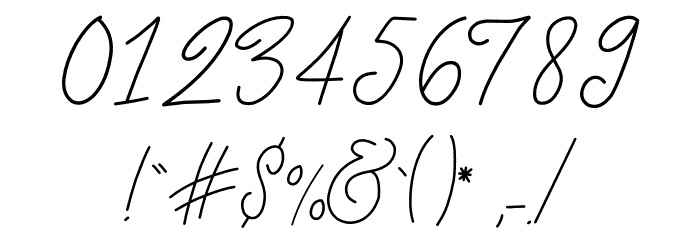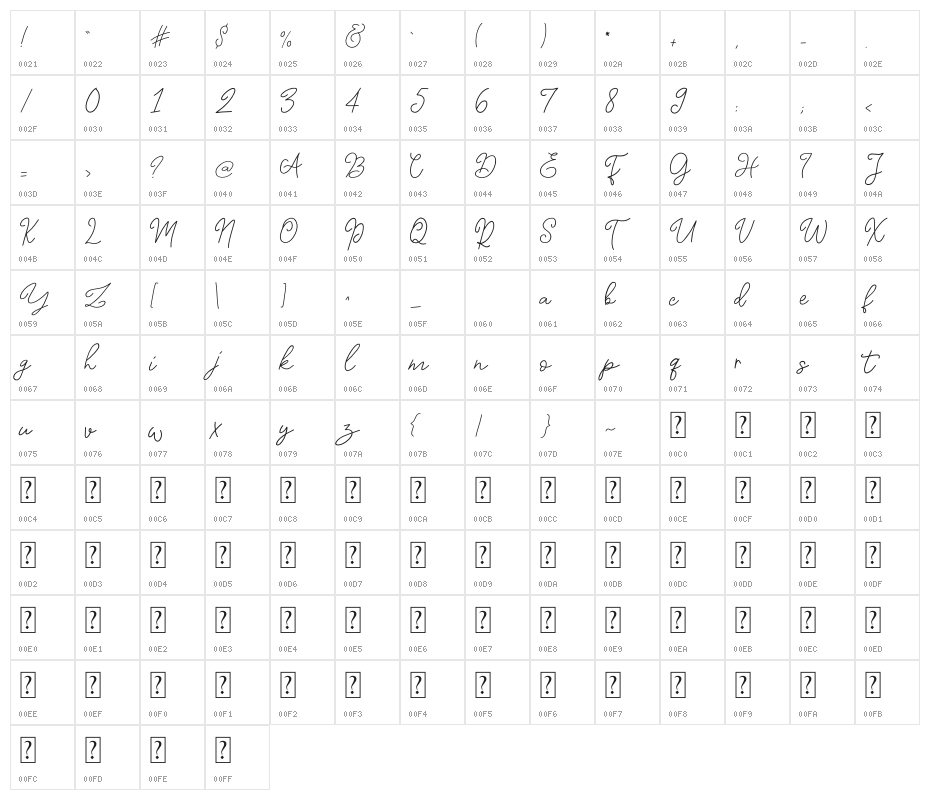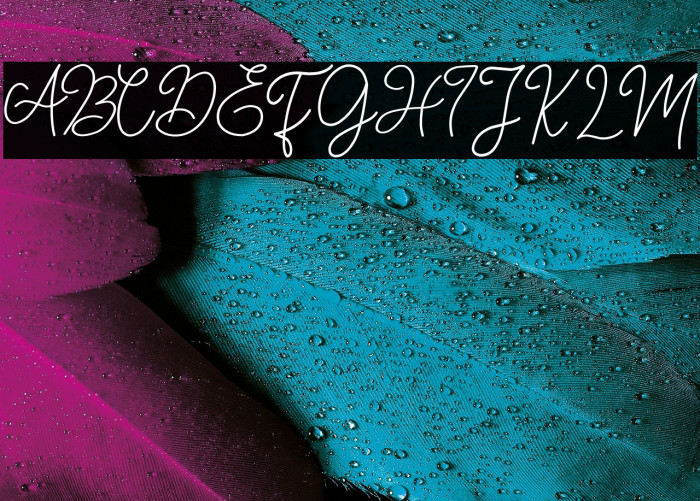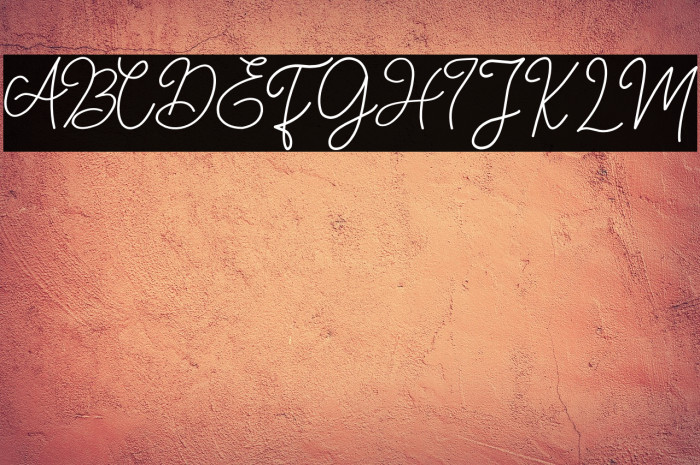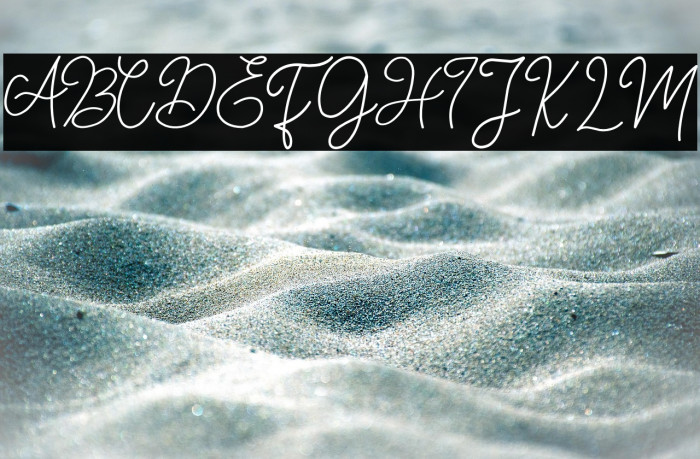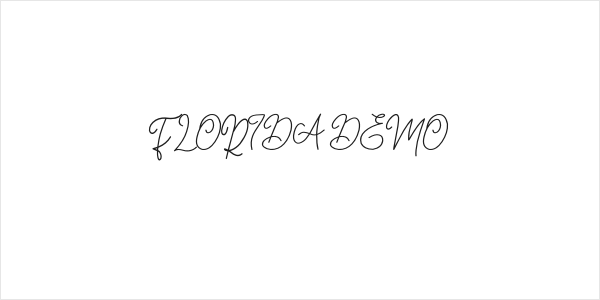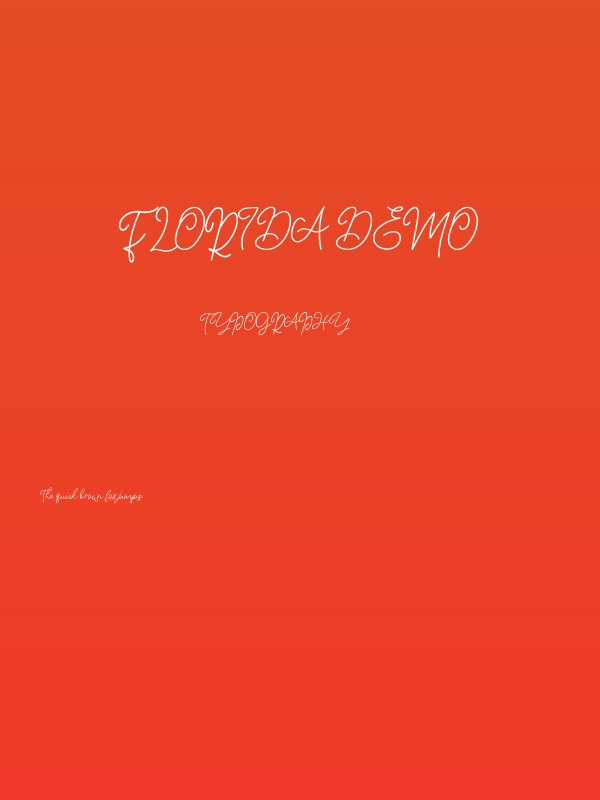
FLORIDA DEMO Font
FLORIDA DEMO Description
This elegant script font features a fluid and graceful style, characterized by its smooth, flowing lines and cursive letterforms. Each character is intricately designed with a consistent slant, giving it a sophisticated and artistic appearance. The uppercase letters are slightly more elaborate, with extended loops and swashes that add a touch of flair, while the lowercase letters maintain a more subtle, yet equally refined look. The numerals and special characters are crafted to match the overall aesthetic, ensuring a cohesive and harmonious design. This font exudes a sense of elegance and creativity, making it ideal for projects that require a personal and artistic touch.